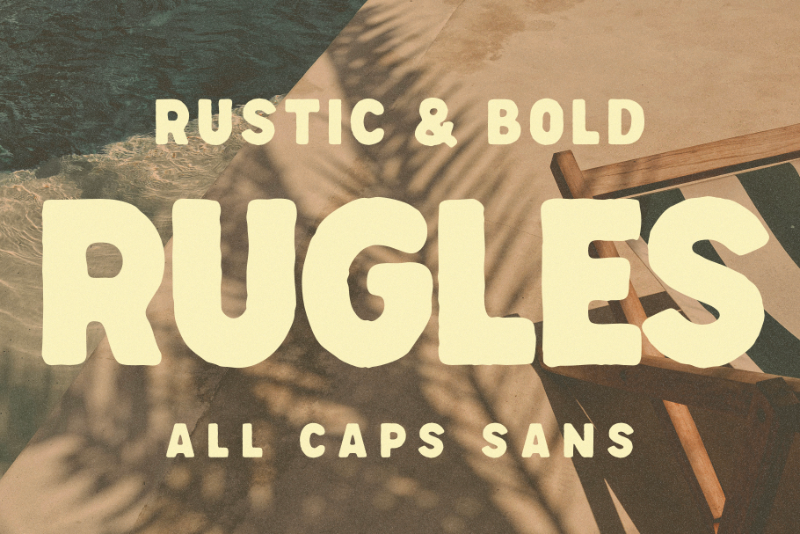
RUGLES (Previously GILDSLEY) � Bold Rough Headline Font Craving a typeface that dominates the spotlight? RUGLES brings raw, rough strokes fused with standout letterforms, setting a new standard for high-impact visuals across a variety of markets. � Bold, Rough Forms � Eye-catching shapes that refuse to blend in. � Standout Legibility � Crisp readability, even in dense layouts. � Urban Edge & Versatility � Perfect for streetwear, event posters, artisanal packaging, and more. � High-Impact Branding � Amplifies authenticity with an industrial backbone. � Rebellious Aesthetic � Modern and fearless, ideal for brands seeking to break the mold. � Support for 202 Languages � Global reach without limitations. Designed for creative professionals and brands that need a bold identity� from streetwear labels to movie/documentary promotions, events, and beyond. RUGLES stands out in high-energy niches that demand an urban, edgy vibe. By merging an industrial toughness with a rebellious spirit, RUGLES sparks excitement in audiences looking for fearless design. It taps into the drive to stand out, inspiring confidence and daring creativity. Ready to elevate your projects? Pay RUGLES NOW and unleash bold typography that resonates with contemporary trends�ensuring your brand makes an unforgettable statement. ▬▬▬▬▬▬▬▬▬▬▬▬▬▬▬▬▬▬ FONT LICENSE & COPYRIGHT NOTICE This font is for DEMO, TESTING, or NON-COMMERCIAL USE ONLY. A COMMERCIAL LICENSE IS REQUIRED for any business or profit-driven use. More... |